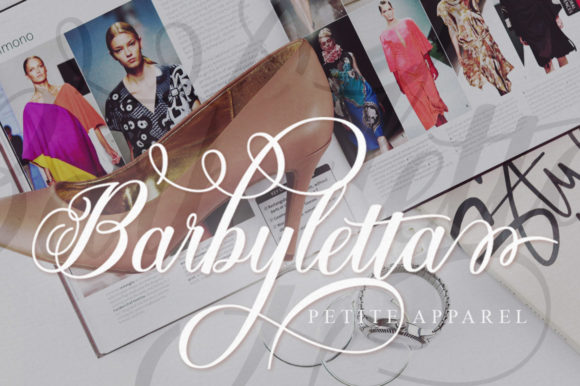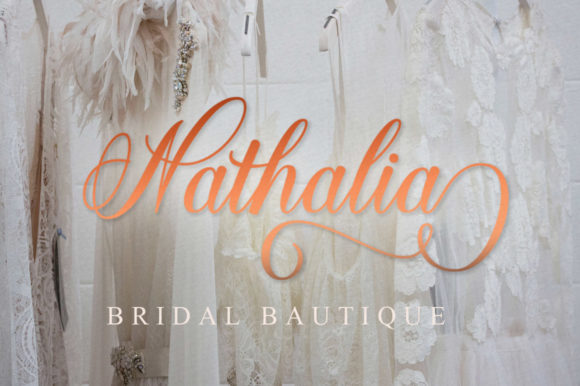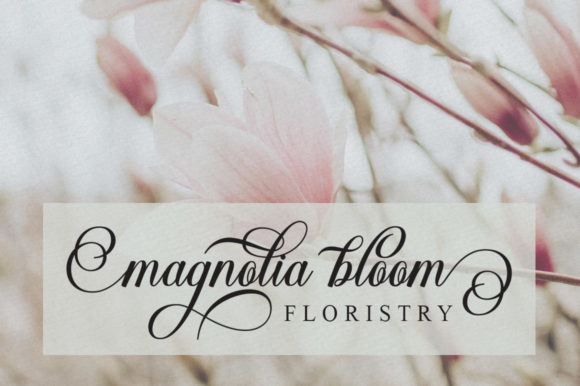
Introduction to Silentha Font
Have you ever stared at a blank canvas, waiting for the perfect design to emerge? I’m sure many of us designers can relate to that feeling. It’s a moment of creative paralysis, where the blank space seems to scream for inspiration. But then, something magical happens – a font, a color palette, or a typography style sparks an idea, and suddenly the project comes alive. For me, that moment happened when I discovered the enchanting Silentha Font.
With its elegant script style and intricate details, Silentha Font is a game-changer for any romantic project. Whether you’re designing wedding invitations, branding materials, or simply a love letter, this font is sure to add a touch of sophistication and whimsy. And the best part? It’s PUA encoded, making it incredibly easy to access all of the glyphs and swashes.
As a valuable design resource, Silentha Font offers high-quality typography that’s perfect for creative projects. And, with a transparent background, you can easily integrate it into your design without any hassle. So, if you’re looking for a unique and beautiful font to elevate your design, look no further than the Silentha Font.
Key Features of Silentha Font
- Unique, elegant font design ideal for use in logos, branding materials, and other visual identity projects.
- Supports a wide range of languages, making it a versatile choice for designers working on international projects.
- OpenType features, including ligatures, swashes, and ornaments, adding an extra layer of sophistication to designs.
Honest Review: Silentha Font
I recently came across the Silentha Font while searching for the perfect design resource for my creative project. I was drawn in by its elegant and refined aesthetic, and I’m excited to share my thoughts on this font.
Here are some of the things I love about the Silentha Font:
- ✨ High quality design: The font is well-crafted and looks great on both light and dark backgrounds.
While I’m overall impressed with the Silentha Font, there are a few limitations to keep in mind:
- ⚠️ Limited character set: The font only includes a basic set of characters, which may limit its use for more complex projects.
- ⚠️ Not suitable for bold headings: The font is best used for body text or smaller headings, as it may not hold up to larger font sizes.
Overall Impression
Overall, I’m pleased with the Silentha Font and would recommend it to designers looking for a high-quality, elegant font for their creative projects. While it may have some limitations, its strengths make it a valuable addition to any design resource collection.
The Silentha Font is a versatile and elegant design resource ideal for creative projects. With its high-quality design and transparent background, it can elevate your work to the next level.
To get the most out of the Silentha Font, experiment with different font sizes, colors, and combinations. You can also pair it with other design elements to create a unique look.
The Silentha Font is suitable for a wide range of design projects, including:
- Brochures and flyers
- Wedding invitations and event materials
- Branding and logo design